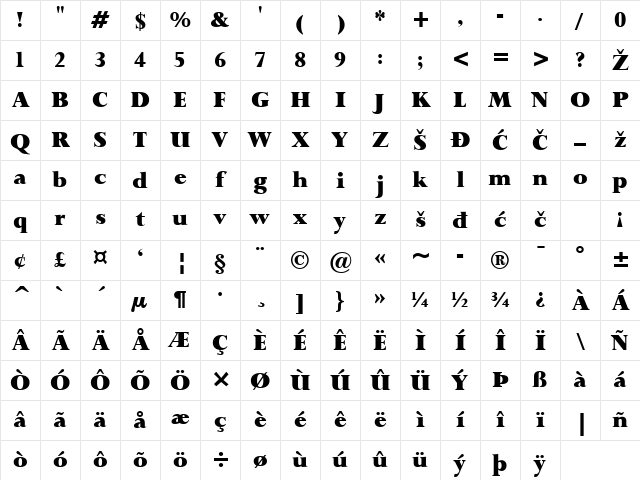
LapidaryBlack Regular
Design Context for LapidaryBlack
LapidaryBlack is a composed and adaptable typeface that performs quietly and consistently across a wide range of design contexts.
Pro Tip: Use LapidaryBlack in both headline and body roles to test its range before committing to a single application.